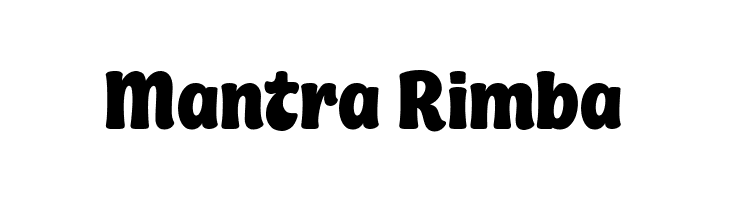
A modern, wide, and light sans-serif font with excellent readability.
A modern, wide, light italic font with a sleek and elegant design.
A modern, wide sans-serif font with a clean and professional look.
A modern, thin, and wide font with a clean, geometric design.
A modern, thin, italicized font with wide letterforms.
A graceful, cursive script font with elegant loops and swirls.
A playful, handwritten font with rounded edges and a casual style.
A charming and elegant script font with a handwritten feel.
A decorative font with characters inside heart shapes pierced by arrows.
A fluid, handwritten-style font with smooth, flowing lines and natural curves.
An elegant script font with flowing lines and sophisticated style.
An elegant script font with graceful, flowing lines and a sophisticated style.
A bold, distressed font with angular, geometric characters and a heavy metal vibe.
A bold, brush-style font with dynamic, handcrafted strokes.
A bold, italic font with a modern and angular design.
A bold, geometric outline font with a modern and structured aesthetic.
A bold, modern font with a shadow effect created by horizontal lines.
A bold, geometric font with sharp serifs and a modern aesthetic.
A playful, handwritten font with an artistic and dynamic style.
A decorative, calligraphic font with elegant swirls and artistic flair.
A modern, elegant script font with flowing, slanted characters and dynamic contrast.
A bold, modern font with clean lines and geometric style.
A dynamic, brush-style script font with fluid, expressive strokes.
Loose, tall handwritten script with thin strokes.
A playful, hand-drawn serif font with bold, irregular strokes.
A bold, geometric sans-serif font with a modern and clean aesthetic.
A bold, dynamic script font with elegant, flowing letterforms.
A modern, elegant script font with flowing cursive letters and stylish numerals.
A bold, flowing script font with elegant curves and decorative flourishes.
An elegant script font with flowing curves and sophisticated details.